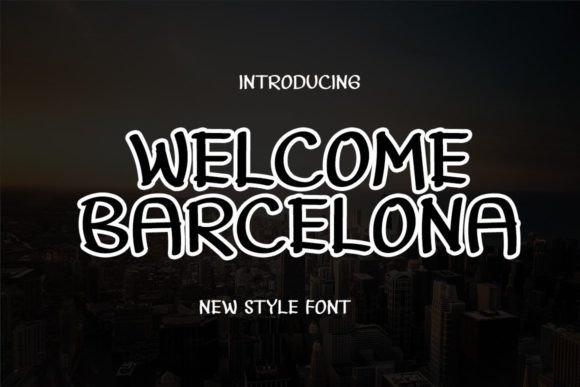
Welcome Barcelona is the perfect font for a special occasion. Whether you're inviting guests to your wedding, designing a birthday card, or creating a social media post, this font will add a touch of sophistication to your projects. Its handwritten style is both elegant and stylish, and it will surely make your designs stand out from the crowd.
This font is also incredibly versatile. You can use it for a wide range of projects, both personal and professional. Whether you're creating a logo, designing a website, or simply writing a letter, Welcome Barcelona will give your work a polished look.
Here are just a few of the ways you can use Welcome Barcelona:
* Wedding invitations
* Save-the-dates
* Wedding vows
* Ceremony programs
* Reception signage
* Thank-you cards
* Birthday invitations
* Holiday cards
* Social media posts
* Blog headers
* Website designs
* Logos
* Business cards
* Letterhead
* Envelopes
* Presentations
* Flyers
* Posters
* And so much more!